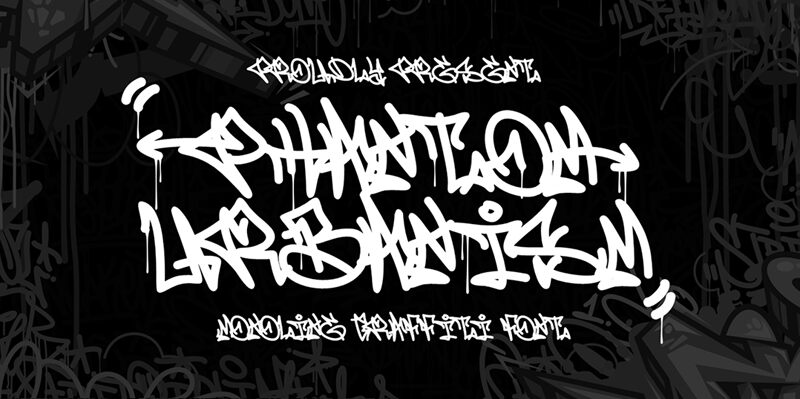
Phantom Urbanism font by Cikareotype Studio captures the rebellious essence of street culture. This free graffiti font embodies an edgy and expressive aesthetic, infused with energetic urban vibes. Its style is a striking homage to the boldness of classic graffiti art, where each stroke echoes the pulse of city life.
Ideal for street culture magazines, music album covers, event posters, skateboard brand logos, fashion labels, video game design, website headers, sports merchandise branding, digital art projects and social media graphics.